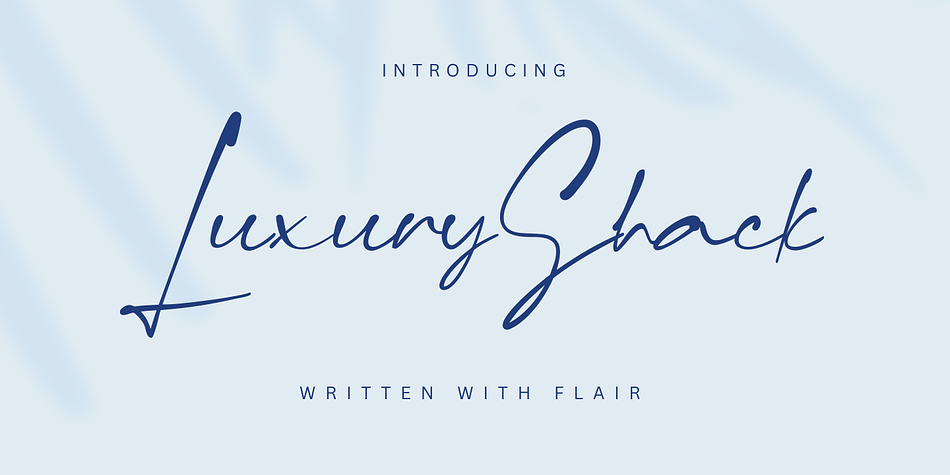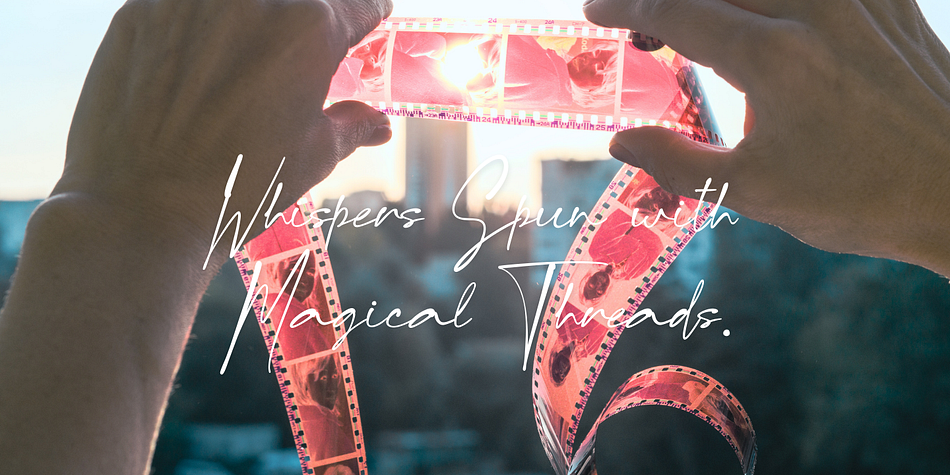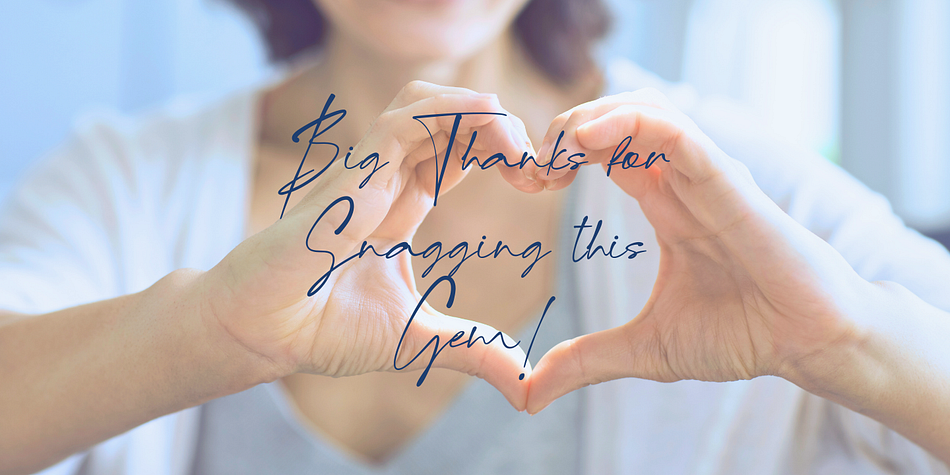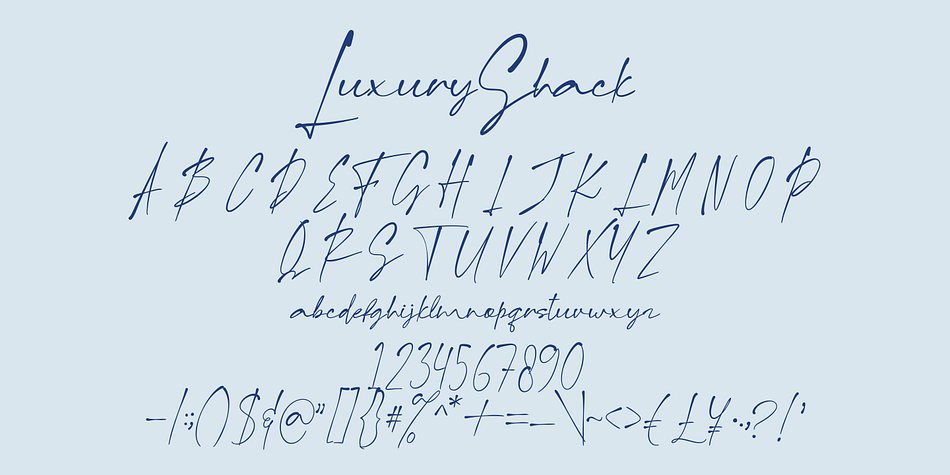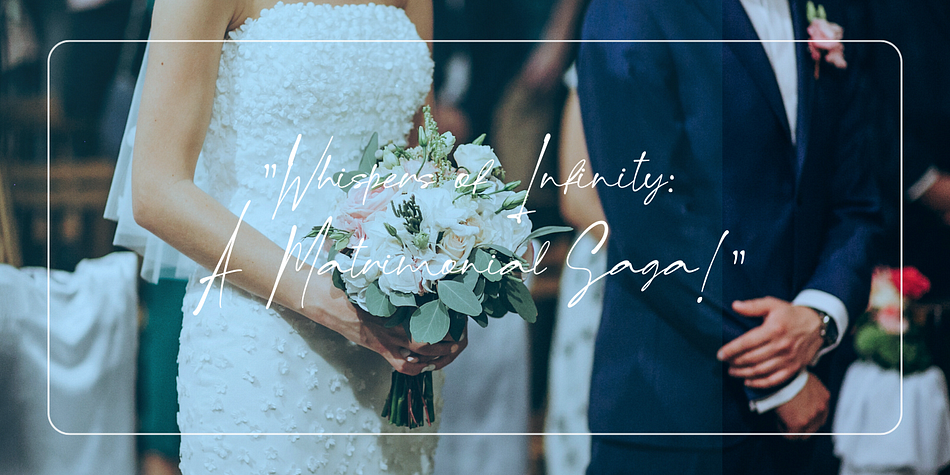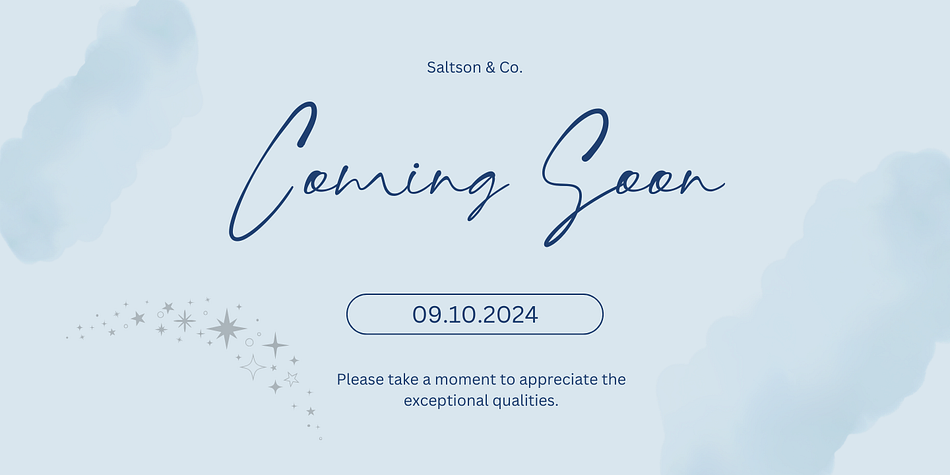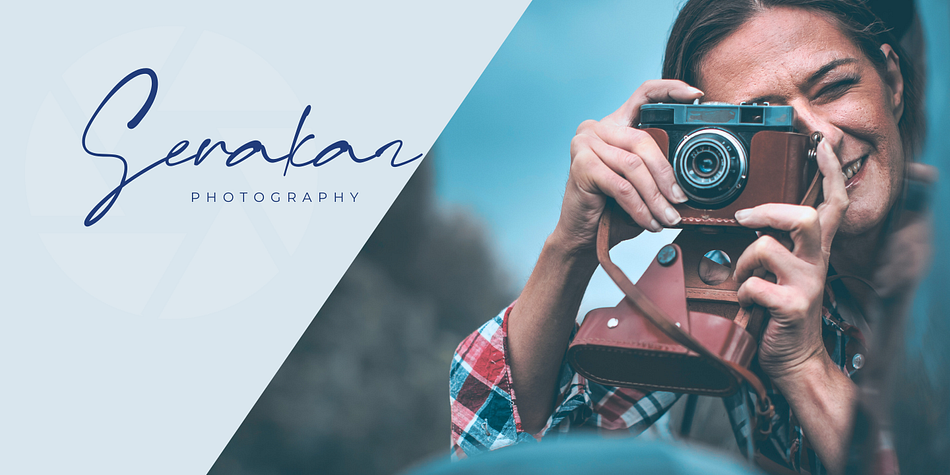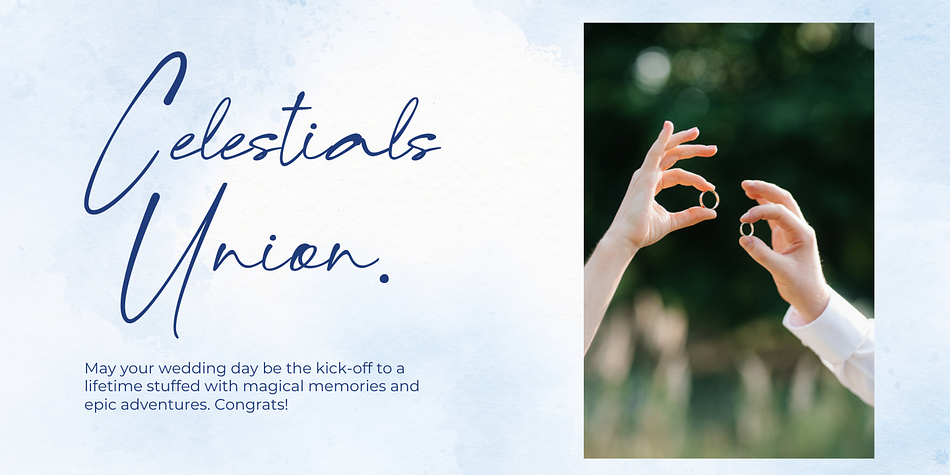
LuxuryShack
LuxuryShack is a modern calligraphy font family published by Gatype.
LuxuryShack font brings a sophisticated and luxurious touch to your designs. Its consistent strokes and abundance of alternates and ligatures create a flawless aesthetic.
Perfect for branding, logos, magazines, quotes, book covers, and wedding invitations, LuxuryShack elevates your projects with elegance and style.